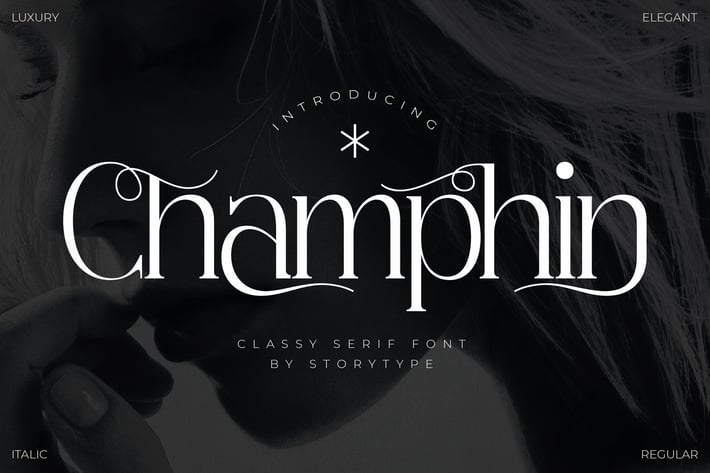
Champhin Classy Serif Font
Champhin Classy Serif Font brings an elegant, luxurious, and timeless touch to your creative projects. With refined serif strokes and a sophisticated character style, this font is perfect for elevating both digital and printed designs with a premium, fashionable aesthetic.
Stylish and luxurious serif style
Smooth curves and refined details
High-quality character set
Branding & visual identity
Invitations & stationery
Fashion and editorial layouts
Premium logo design
Social media aesthetics
Packaging design
A sophisticated serif made to elevate your visuals with elegance, luxury, and character.